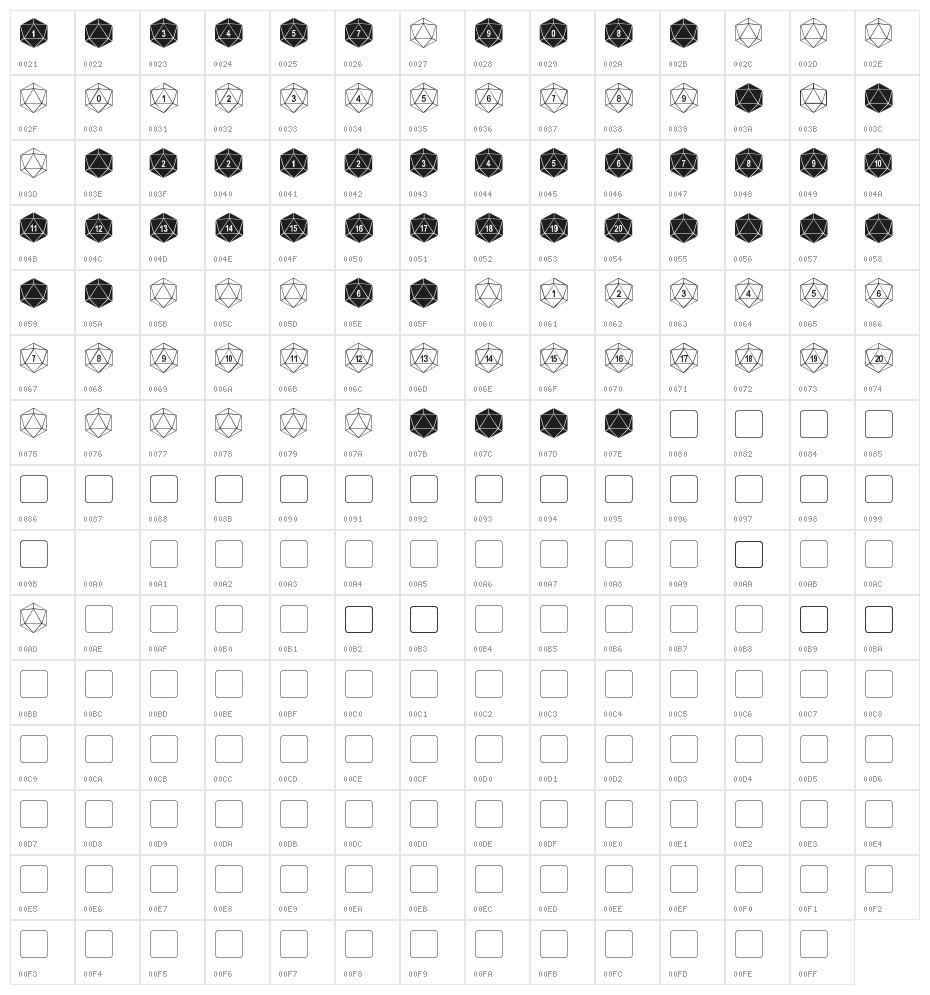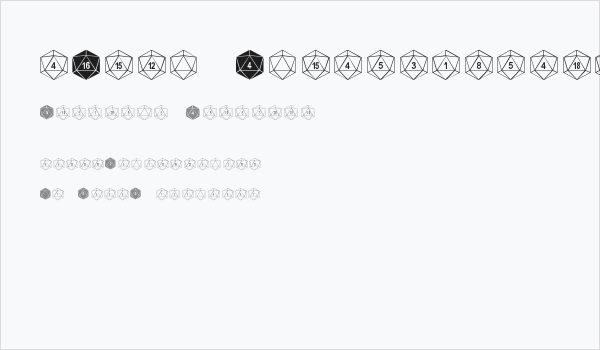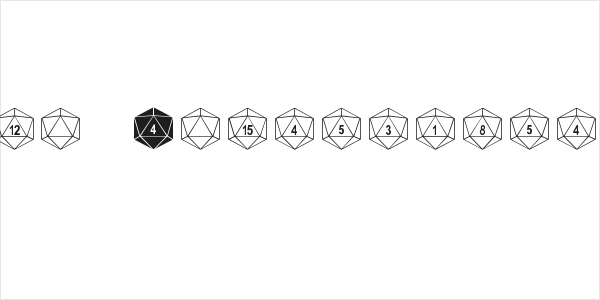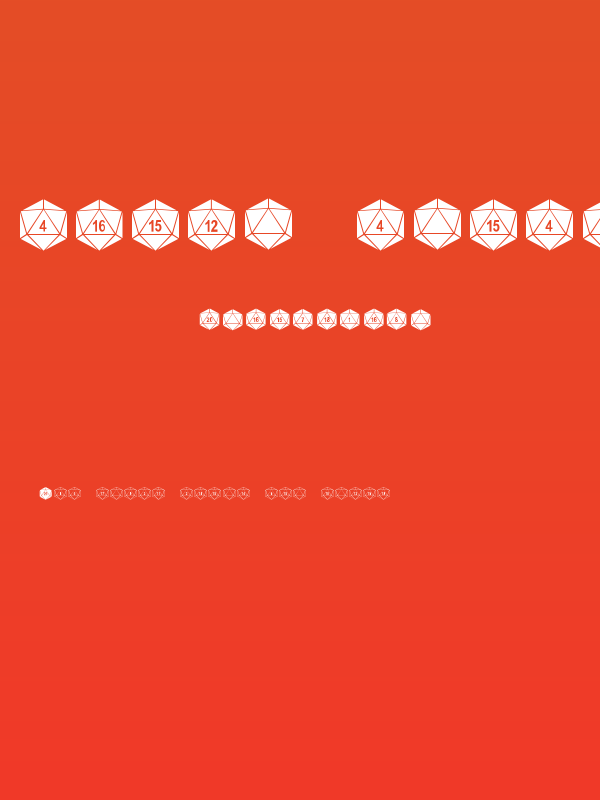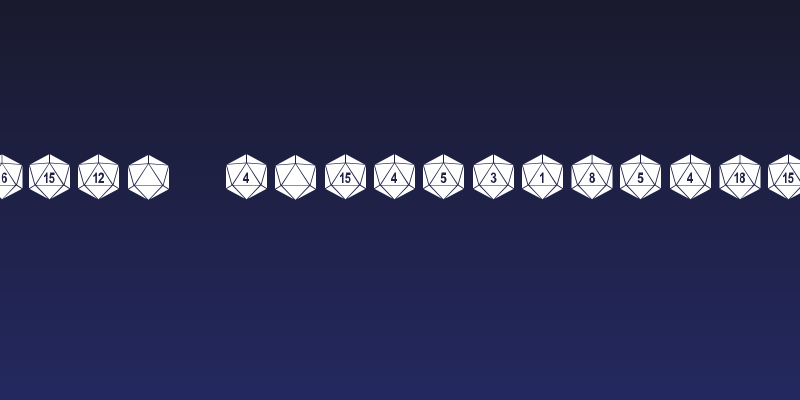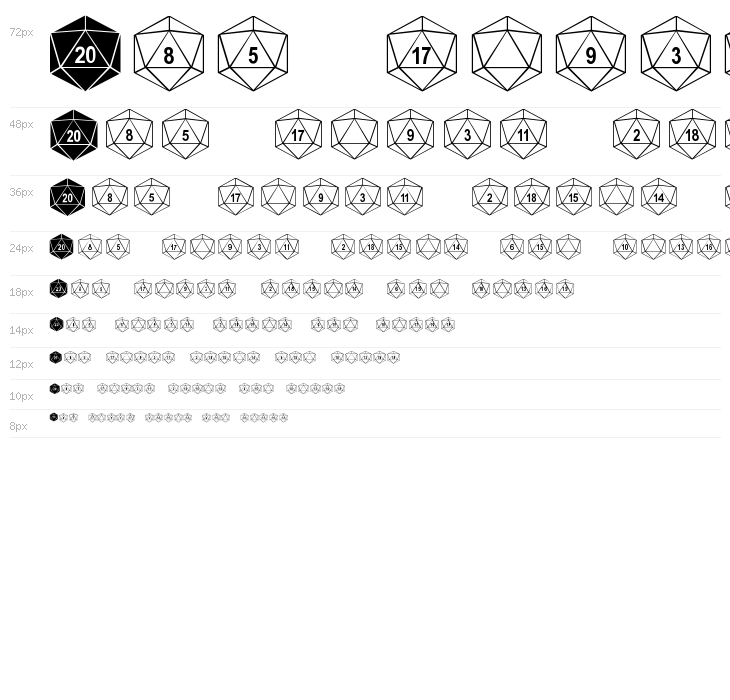
dPoly Duodecahedron Font
dPoly Duodecahedron Description
A geometric, decorative font where each character is placed inside a stylized icosahedron (20-sided die) outline. The numbers are centered and use a clean sans-serif style, with both filled (black) and outlined (white) die backgrounds. The font is highly thematic, evoking tabletop gaming and polyhedral dice.
Overall StyleDecorative, Thematic, Geometric
Use CaseLogos, Headlines, Themed graphics, Game interfaces
Proposed ProjectsTabletop RPG materials, board game designs, event posters, themed invitations, gaming websites.